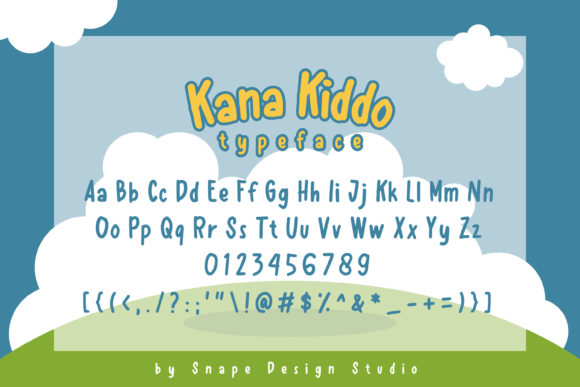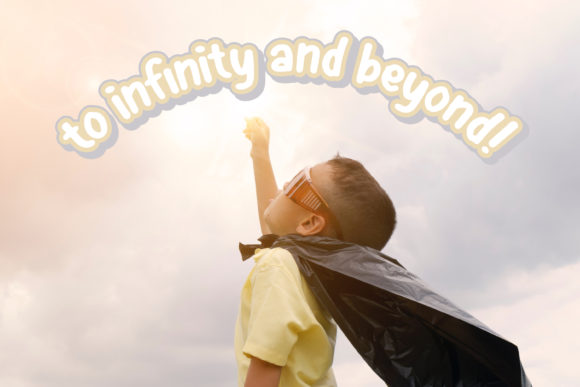
Remember the moment when you first started a new project, and your imagination ran wild with ideas and possibilities? You had a clear vision of what you wanted to create, but you needed the perfect tool to bring it to life. That’s where fonts come in – the unsung heroes of design that can make or break the aesthetic of your work. If you’re looking for a font that exudes warmth and playfulness, you’re in luck.
Meet Kana Kiddo Font, a delightful handwritten font that’s sure to brighten up any school or children’s project. Its friendly and quirky nature makes it the perfect companion for designers who want to add a touch of whimsy to their designs. Whether you’re creating a children’s book, a birthday invitation, or a social media post, Kana Kiddo Font is a valuable asset that’s sure to bring a smile to your audience’s faces.
Kana Kiddo Font Key Features
- Character Set: Supports Japanese Hiragana, Katakana, and basic Latin characters, making it suitable for multilingual applications
- Font Size: Available in multiple sizes, ranging from 12pt to 48pt, to accommodate various design requirements
- Resolution: Optimized for high-resolution displays, including 4K and Retina screens, ensuring crisp and clear typography
- Unique Characteristics: Features a playful, childlike design with rounded shapes and bold lines, making it perfect for children’s books, educational materials, and fun applications
- Color Options: Available in multiple colors, including black, white, and various pastel shades, allowing designers to customize the font to suit their brand or design style
Kana Kiddo Font Review
I recently had the chance to work with the Kana Kiddo font, and I must say it’s a unique and quirky addition to any design project. Here are some of the things that stood out to me:
- ✨ The font’s childlike charm is perfect for creating a playful, whimsical atmosphere. It’s great for projects targeting a younger audience.
- ✨ Kana Kiddo’s bold and colorful aesthetic can add a lot of visual interest to your design. It’s perfect for headings and titles.
- ✨ The font’s irregularities and quirks actually add to its charm, making it feel more human and less sterile.
- ⚠️ The font may not be suitable for projects that require a more professional or formal tone. Its playful nature may clash with the tone you’re trying to convey.
- ⚠️ The font’s irregularities can sometimes make it difficult to read, especially in smaller text sizes.
- ⚠️ The font’s bold and colorful aesthetic can be overwhelming if not used judiciously. Be sure to balance it with more neutral elements.
Overall, I think the Kana Kiddo font is a great addition to any designer’s toolkit, but it’s essential to use it thoughtfully and in the right context. With its unique charm and quirky aesthetic, it’s sure to add a lot of personality to your designs.
Kana Kiddo Font Practical Application Guide
Tips for Getting the Most Out of Kana Kiddo Font
To get the most out of the Kana Kiddo Font, use it in conjunction with bold or italic styles to create visual interest. You can also use it in combination with other fonts to create a unique and playful design.
The Kana Kiddo Font is commonly used in children’s book illustrations, educational materials, and playful advertisements. It’s also a great choice for creating a whimsical and friendly tone in your designs.
Alternatives to Kana Kiddo Font for Designers
The Great Vibes Font is a modern, playful script font that is perfect for creating a fun and lively atmosphere in designs. It’s ideal for use in headings, titles, and other areas where you want to add a touch of personality. Compared to Kana Kiddo Font, Great Vibes Font has a more relaxed and casual feel, making it suitable for a wide range of design projects.
The Alex Brush Font is a elegant and refined script font that is perfect for creating a sophisticated and luxurious atmosphere in designs. It’s ideal for use in headings, titles, and other areas where you want to add a touch of elegance. Compared to Kana Kiddo Font, Alex Brush Font has a more formal and polished feel, making it suitable for high-end design projects.
The Dancing Script Font is a lively and energetic script font that is perfect for creating a playful and dynamic atmosphere in designs. It’s ideal for use in headings, titles, and other areas where you want to add a touch of whimsy. Compared to Kana Kiddo Font, Dancing Script Font has a more carefree and spontaneous feel, making it suitable for design projects that require a sense of movement and energy.
Q: What is the character set of the Kana Kiddo Font?
The Kana Kiddo Font includes a comprehensive character set that supports multiple languages, including Latin, Cyrillic, Greek, and Japanese. It also includes a range of punctuation marks, symbols, and special characters to ensure proper formatting and readability.